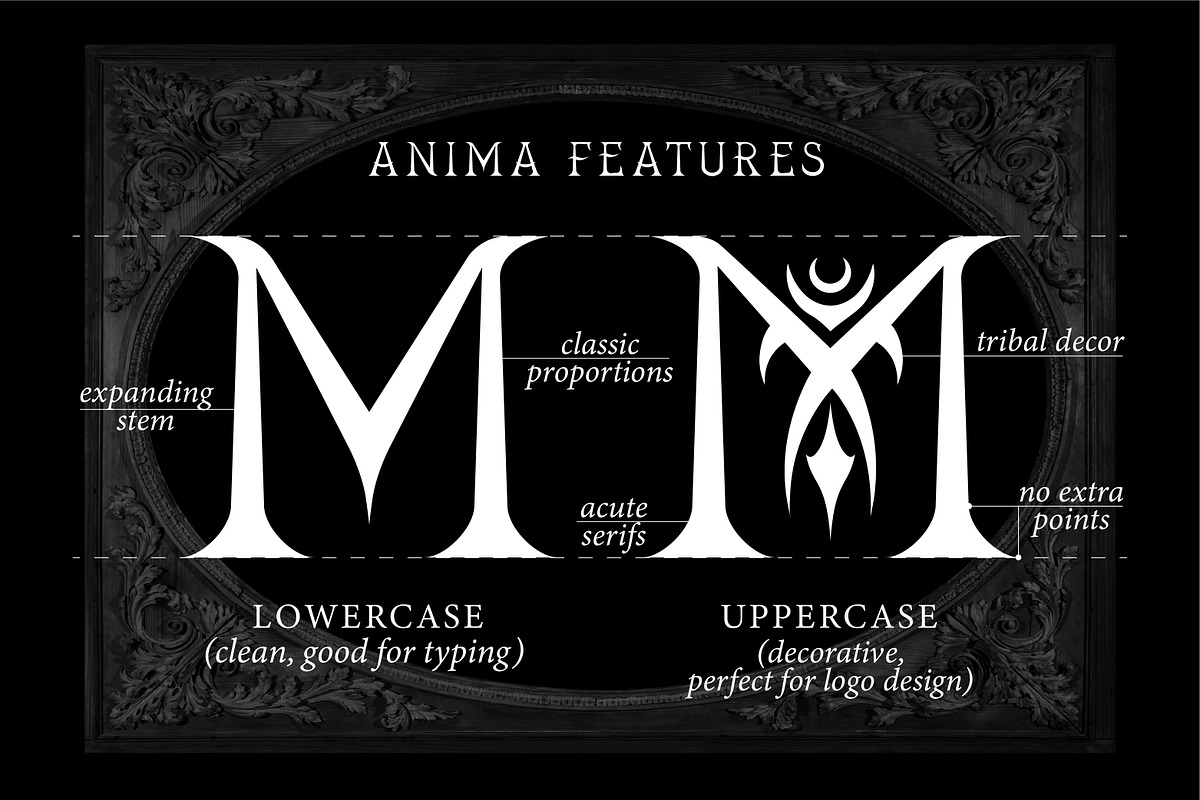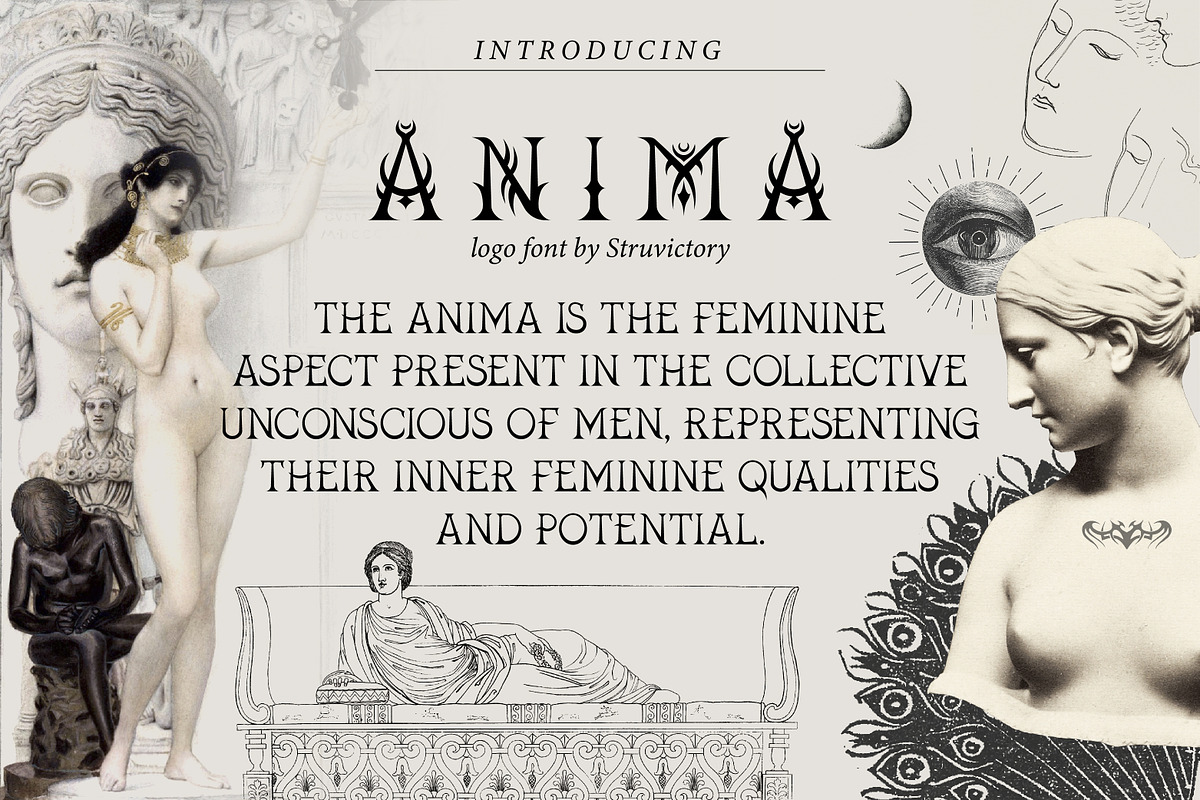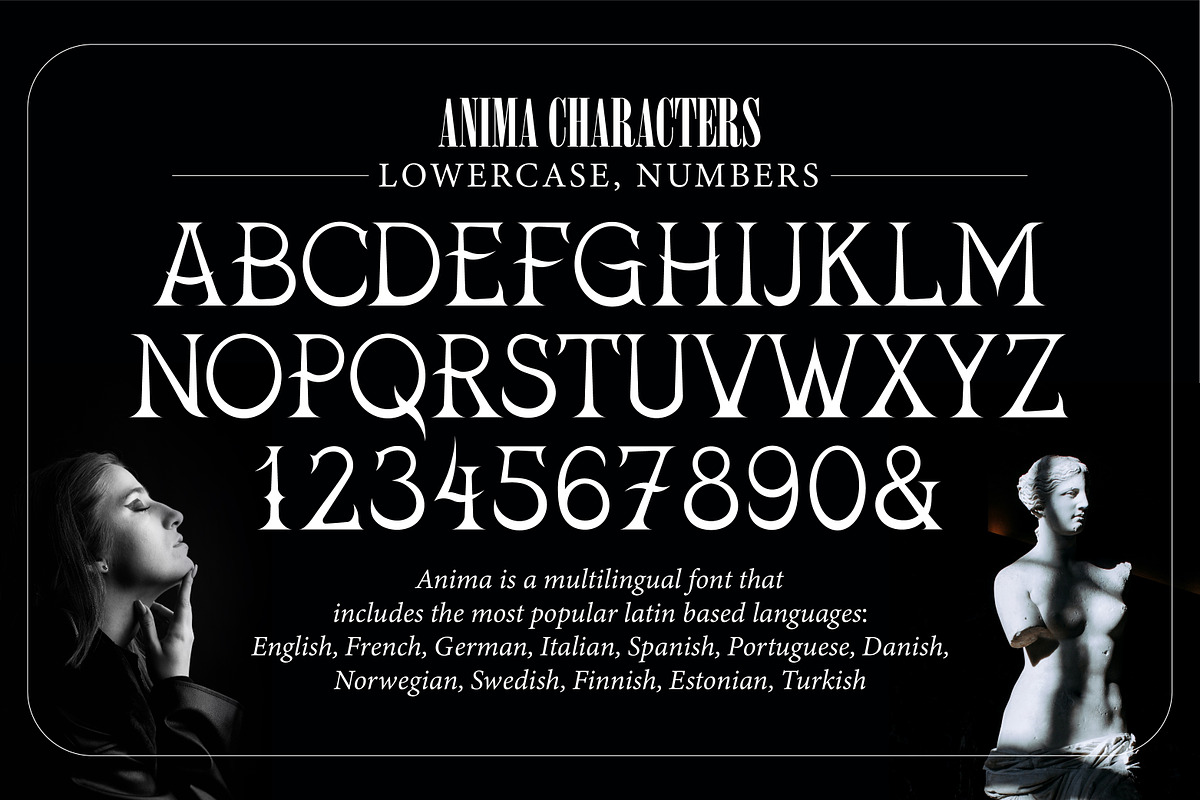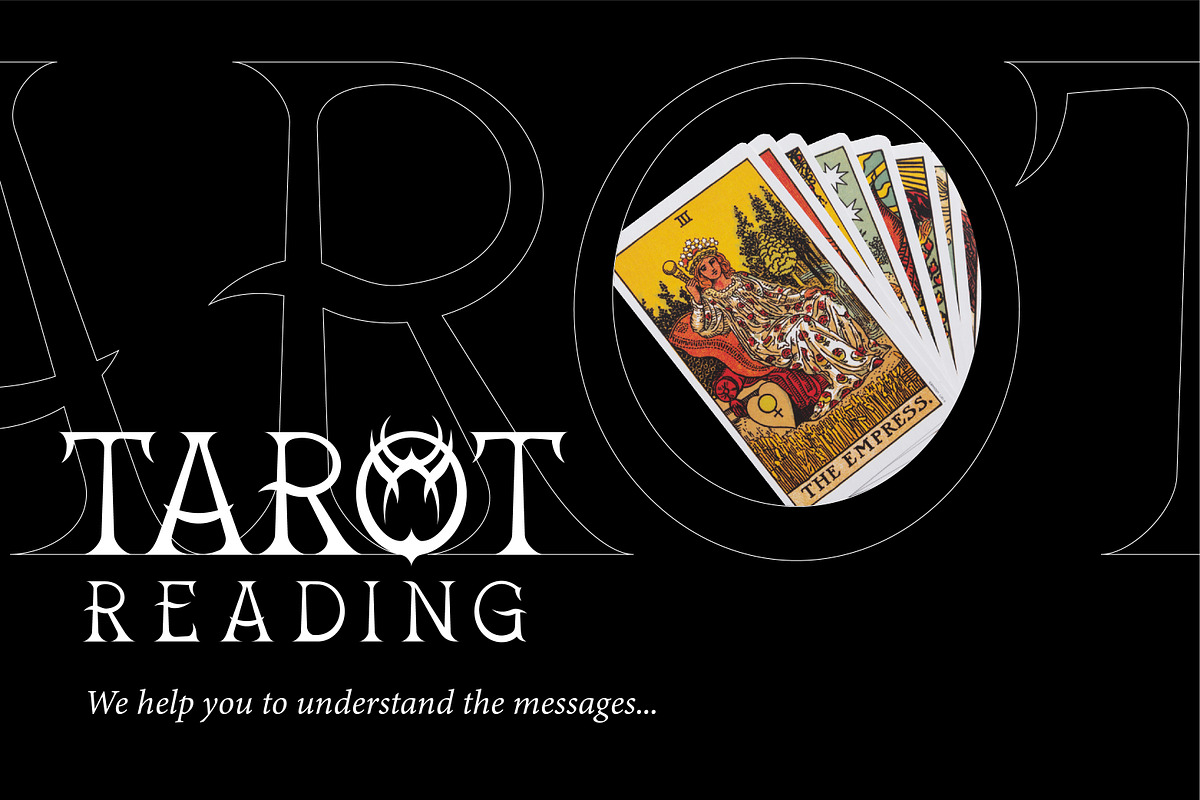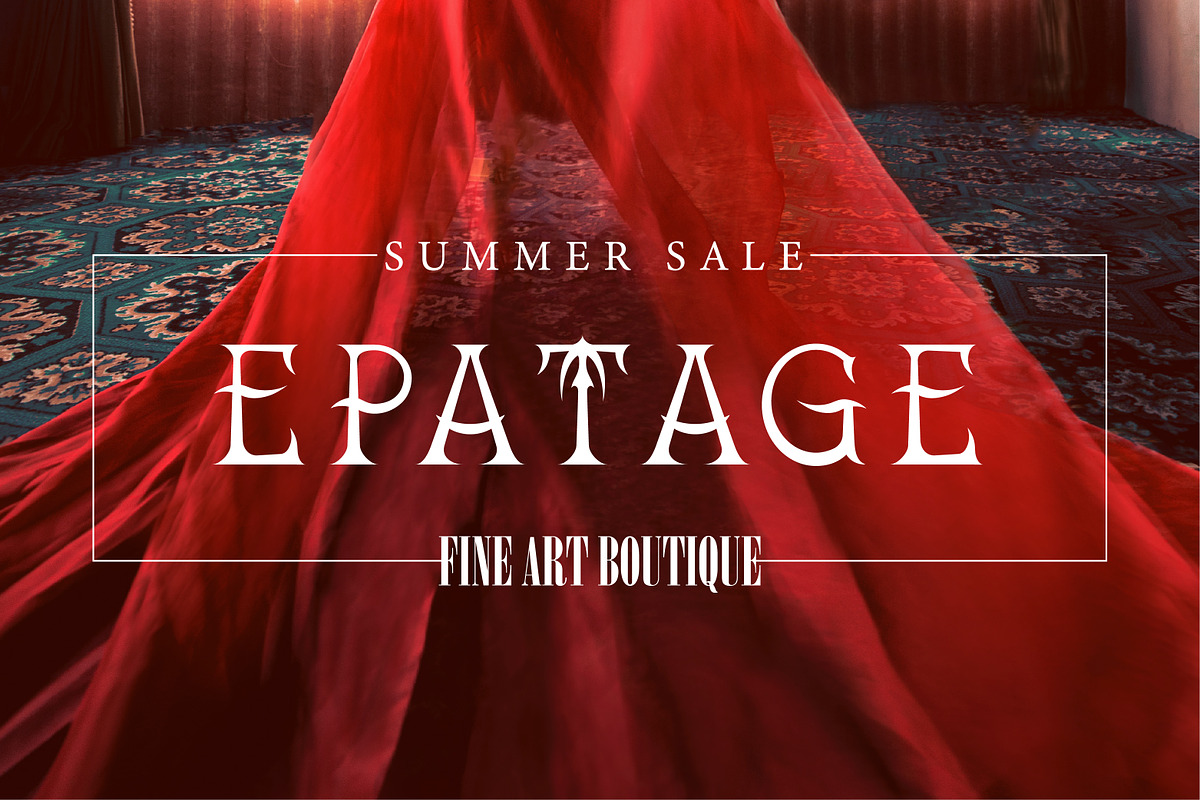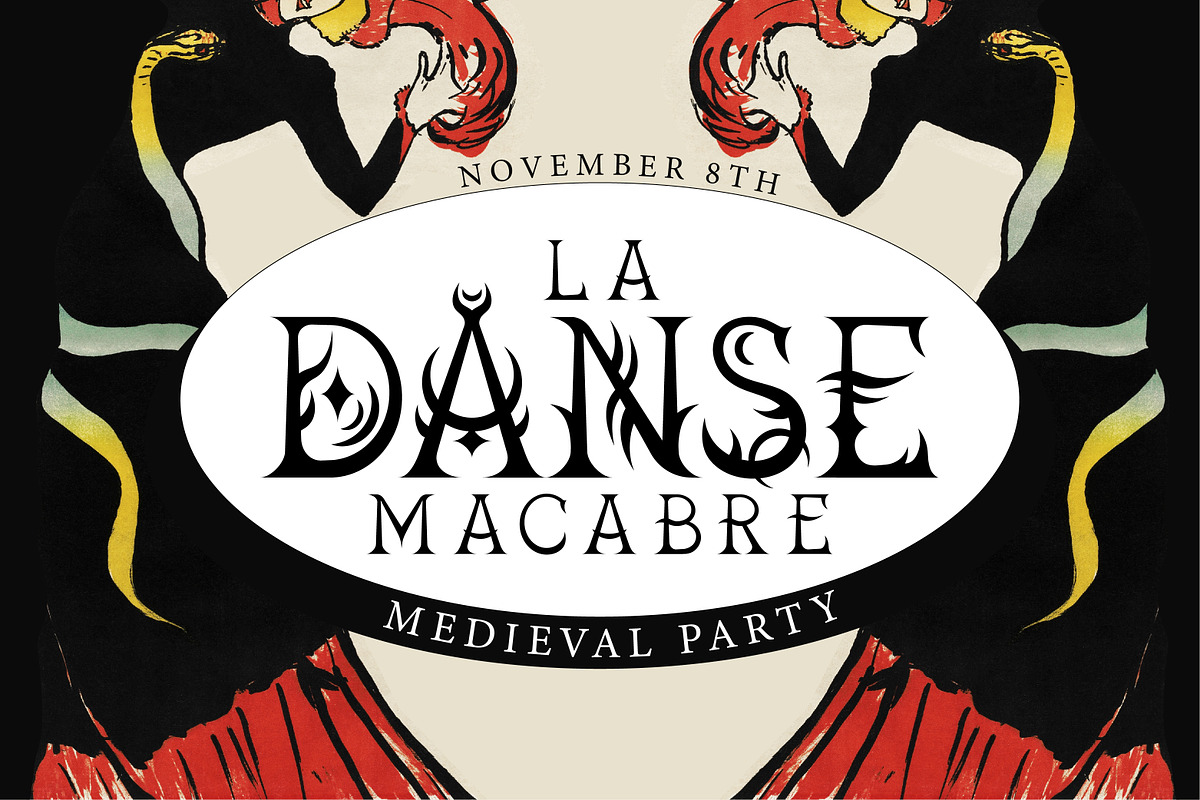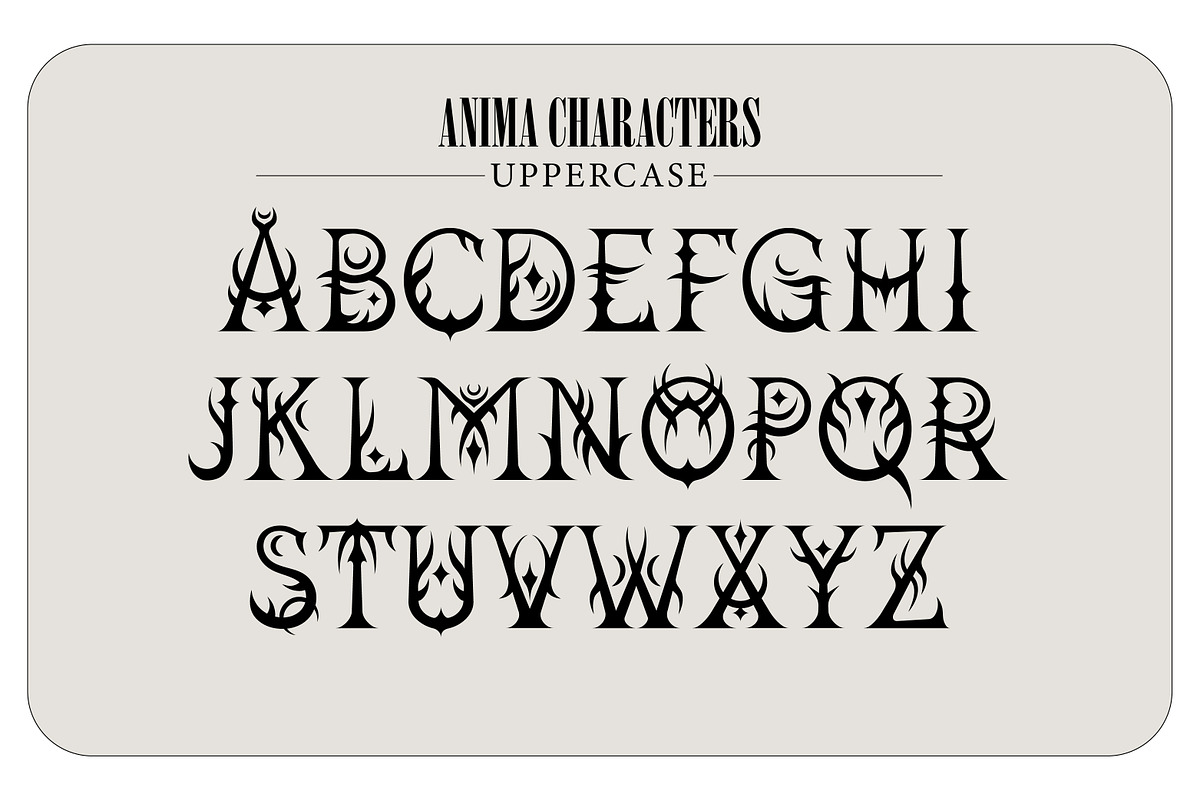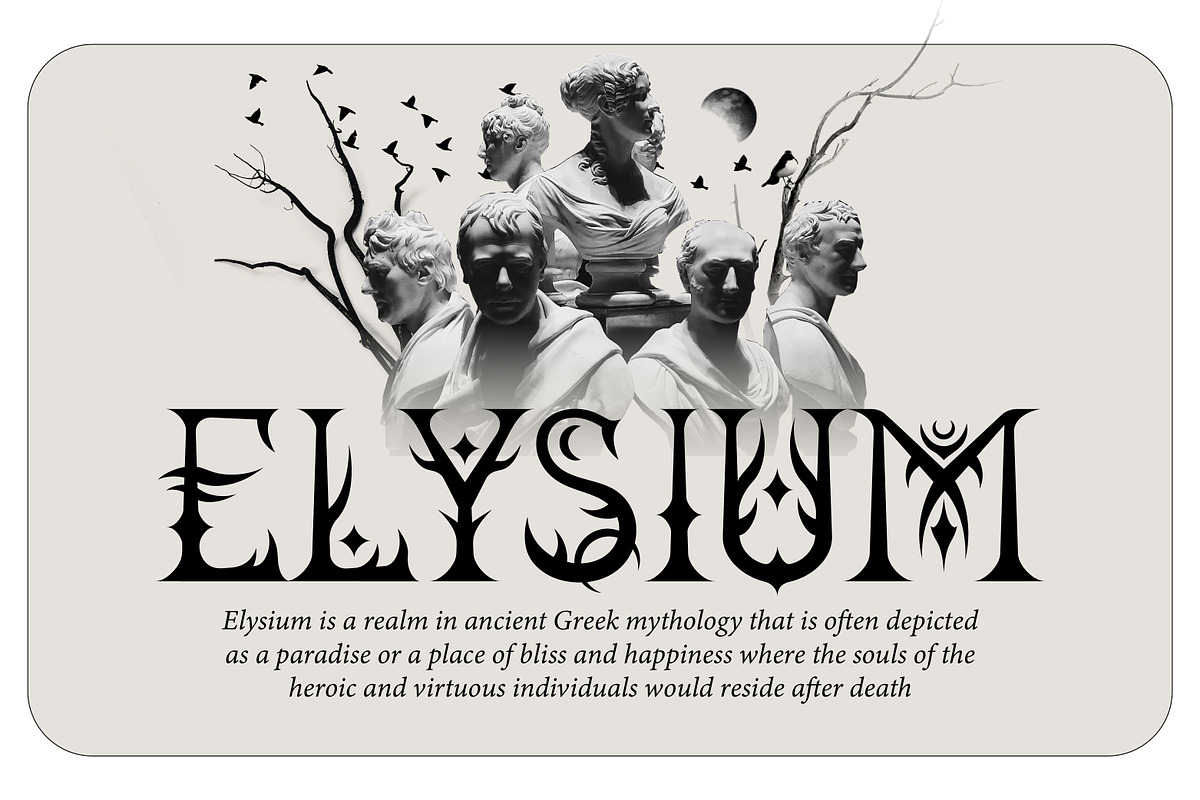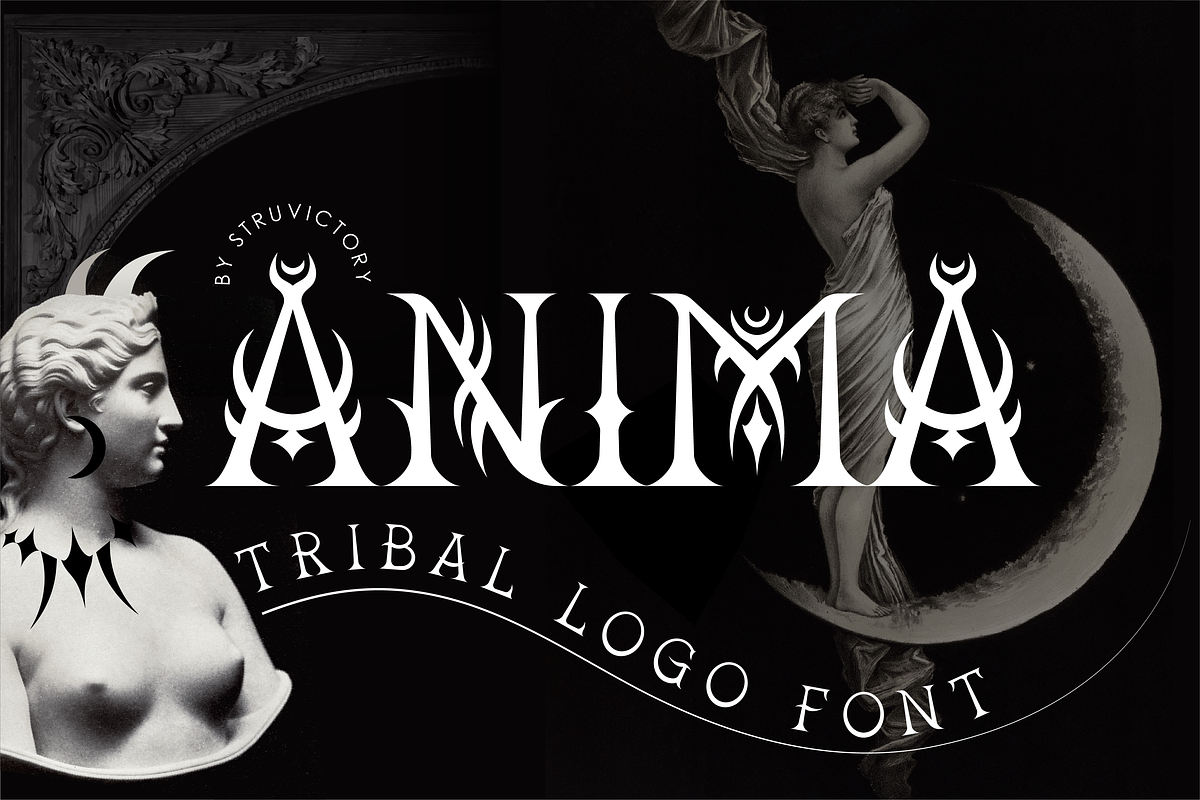
Anima - Tribal Mystical Logo Font
Introducing Anima, a mesmerizing decorative uppercase font designed to bring your logos to life. Each capital letter is meticulously crafted to embody the essence of mystical aesthetics, allowing you to create stunning and unique logos that capture attention and leave a lasting impression. Whether you're a startup looking to make a memorable statement or an established business seeking a fresh and distinctive identity, Anima is the perfect choice. Unleash the power of Anima and elevate your brand with its captivating charm and timeless appeal.
The font is created in classic proportions with large acute serifs. The font is suitable for the design on the theme of spirituality, occultism, mysticism, esoterism, divination, shamanism, psychology, handicraft, halloween design, tattoo.
Anima has extensive language support, it includes English, French, German, Italian, Spanish, Portuguese, Danish, Norwegian, Swedish, Finnish, Estonian, Turkish. Need to know if your language is supported? Type any words in the text box below and see if all characters you need are there.